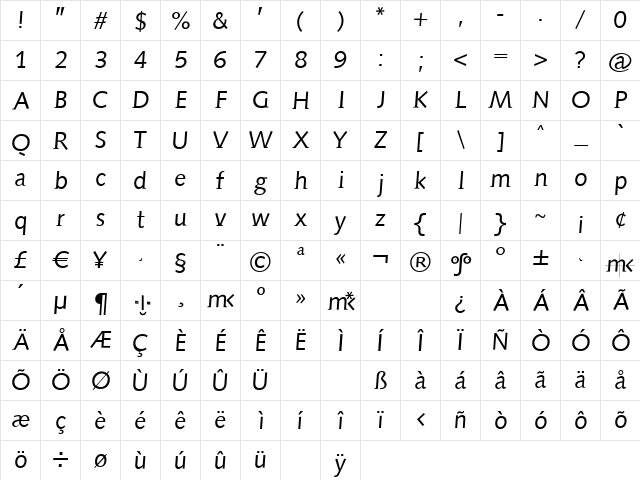
AidaSerifObliqueMedium Regular
Design Context for AidaSerifObliqueMedium Typeface
AidaSerifObliqueMedium carries the refined structure of traditional serif typography, with bracketed terminals and considered proportions that communicate credibility and craft. The slanted form adds forward momentum and visual energy.